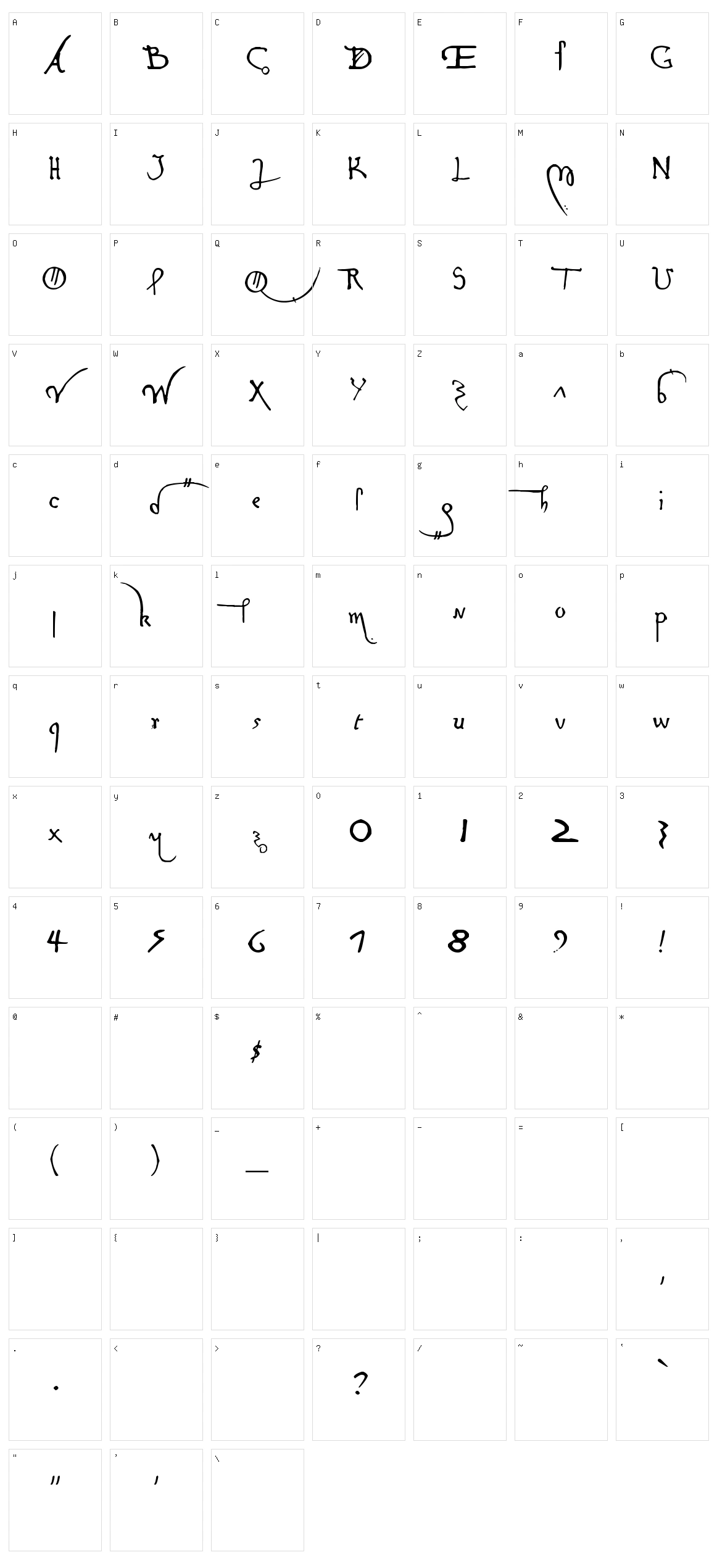
Leonardo Hand Forward
A font inspired by the codex of Leonardo Da Vinci. He wrote backwards in a handwriting similar to this. This version is left-right.